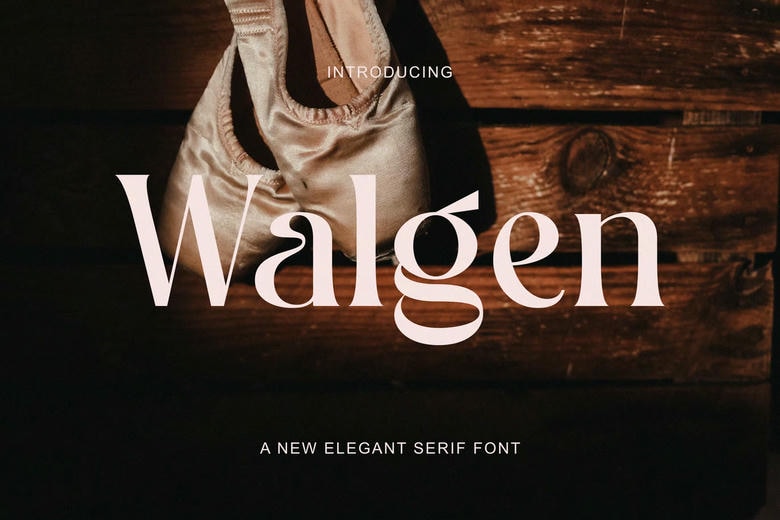
Walgen Font
Walgen is An elegant and modern serif font. With its modern and minimalist look, Walgen brings a luxurious and clean style to your projects such as websites, modern logos, brand identities, social media quotes, wedding stationery and anything else you need!
Walgen displays the capital letters from A to Z, which are unique and elegant, of course, because they are created with great care to become beautiful fonts and can be adapted to the different large projects you want.
Walgen Serif Font